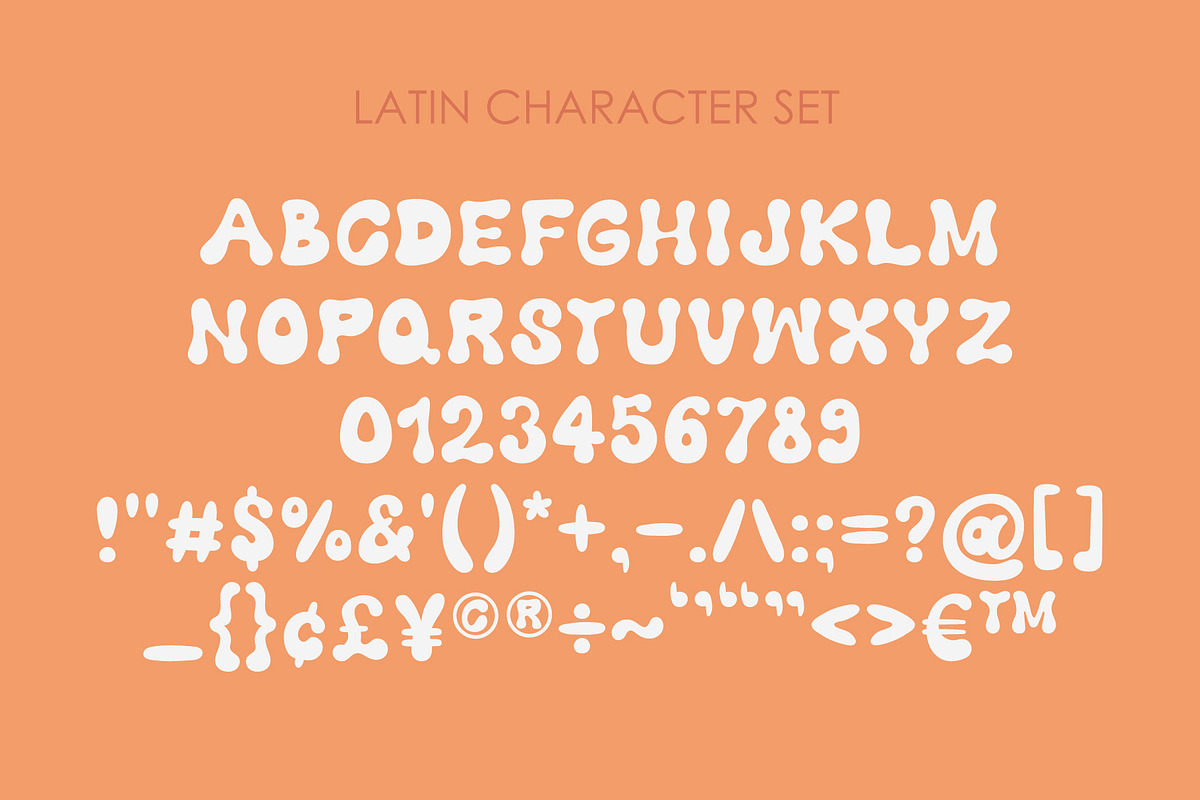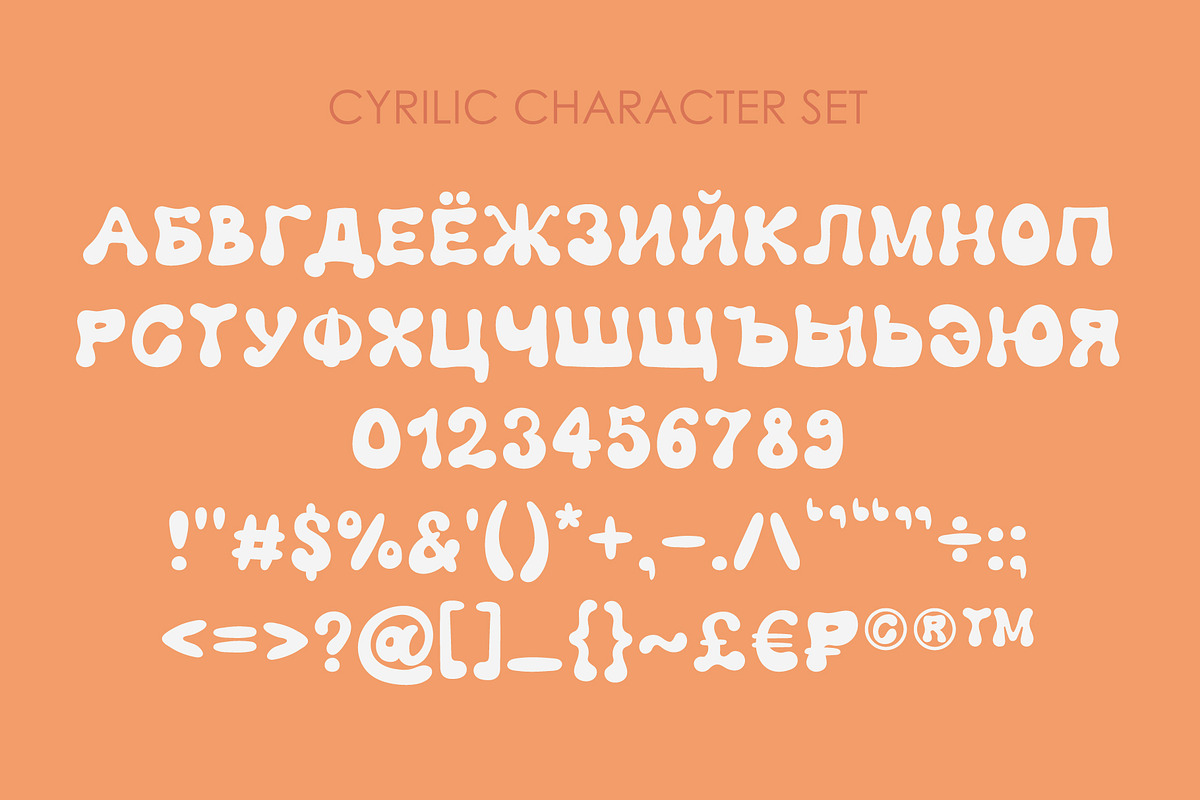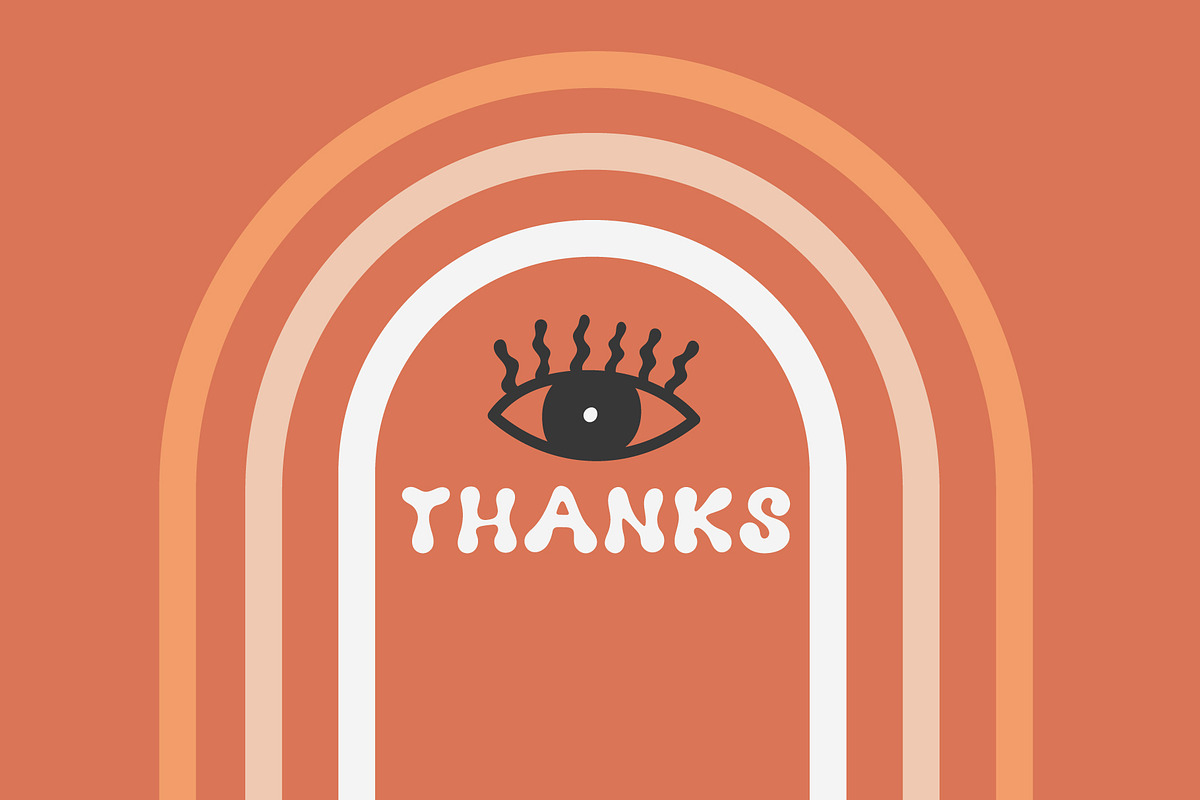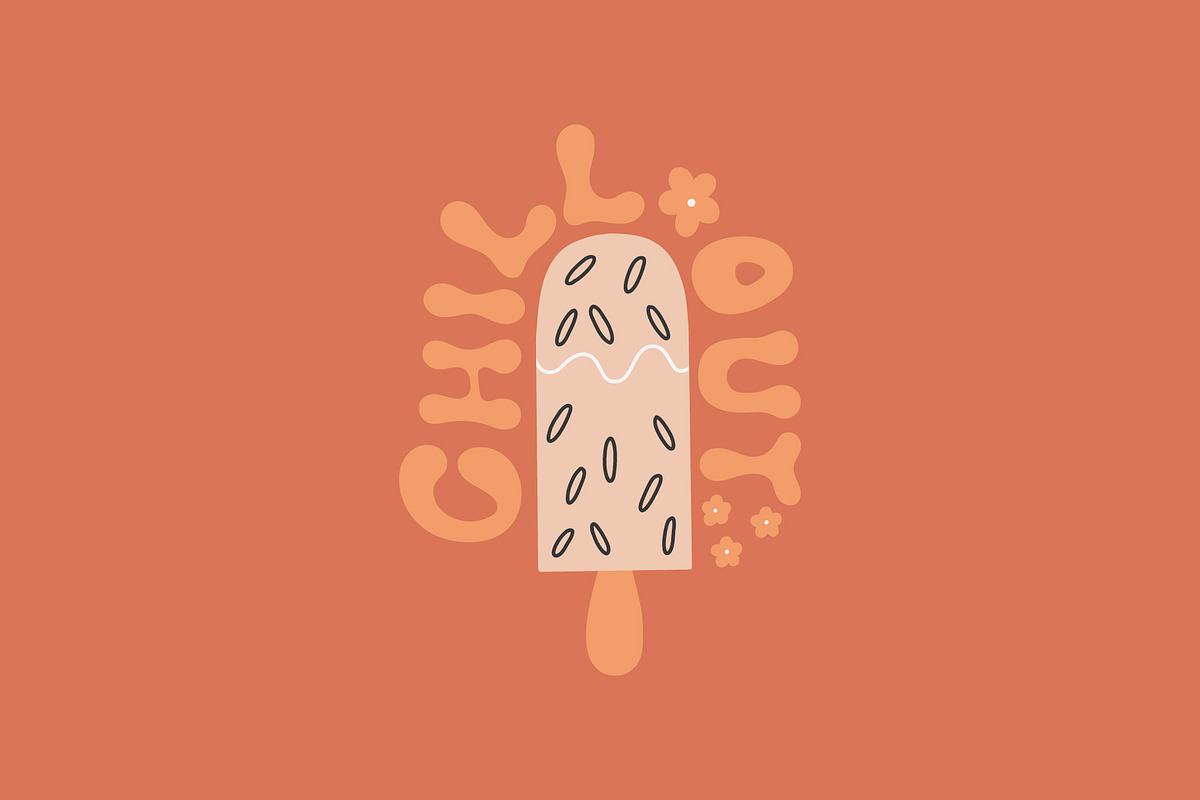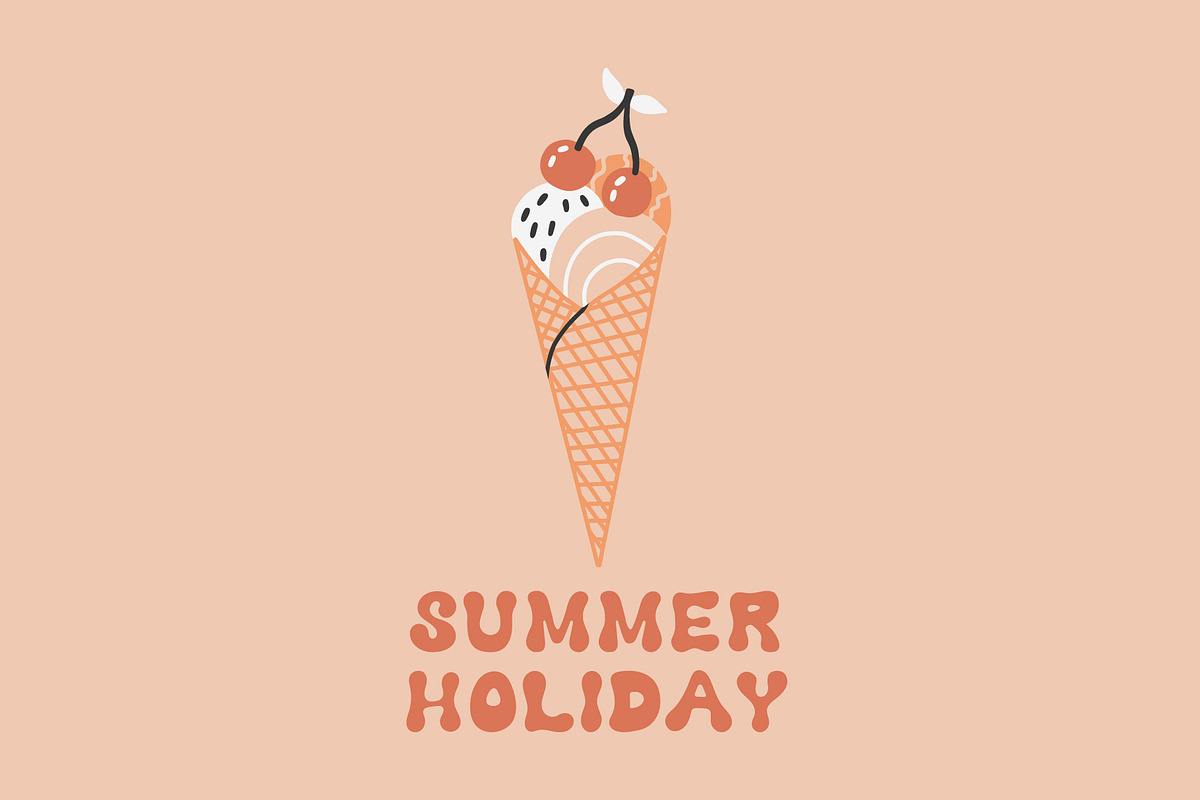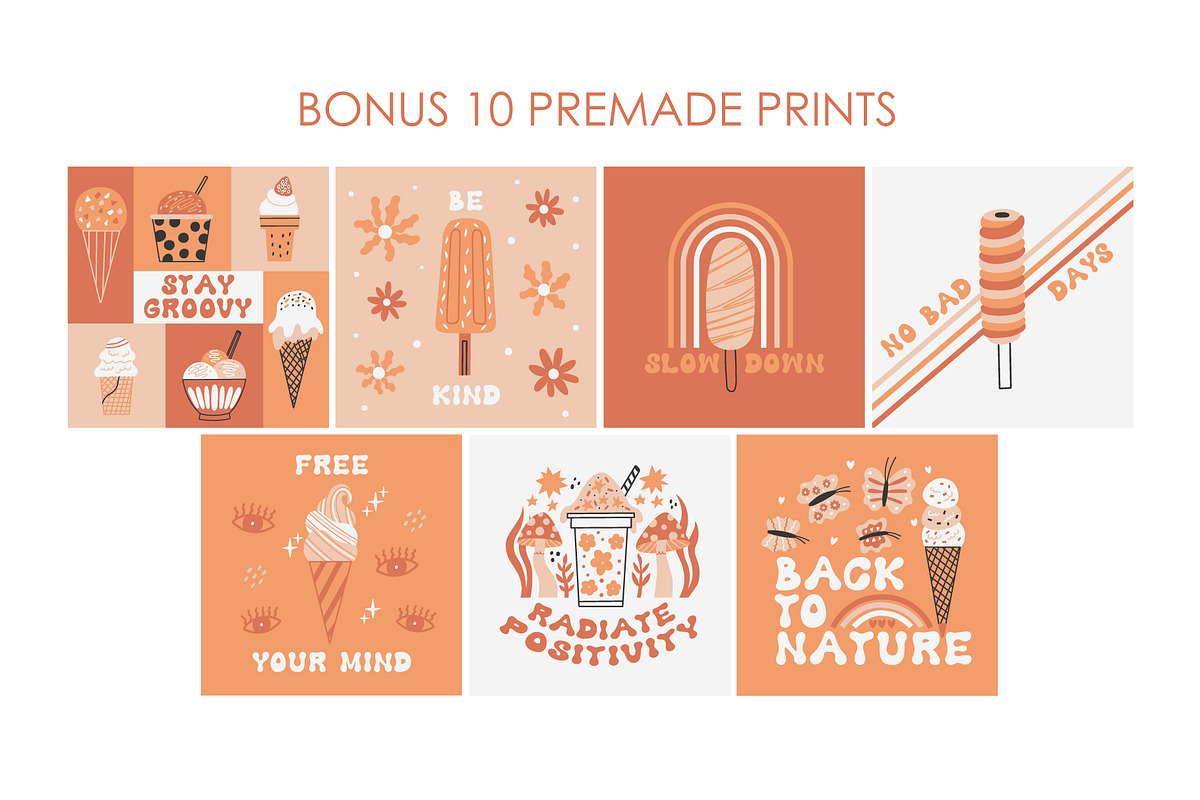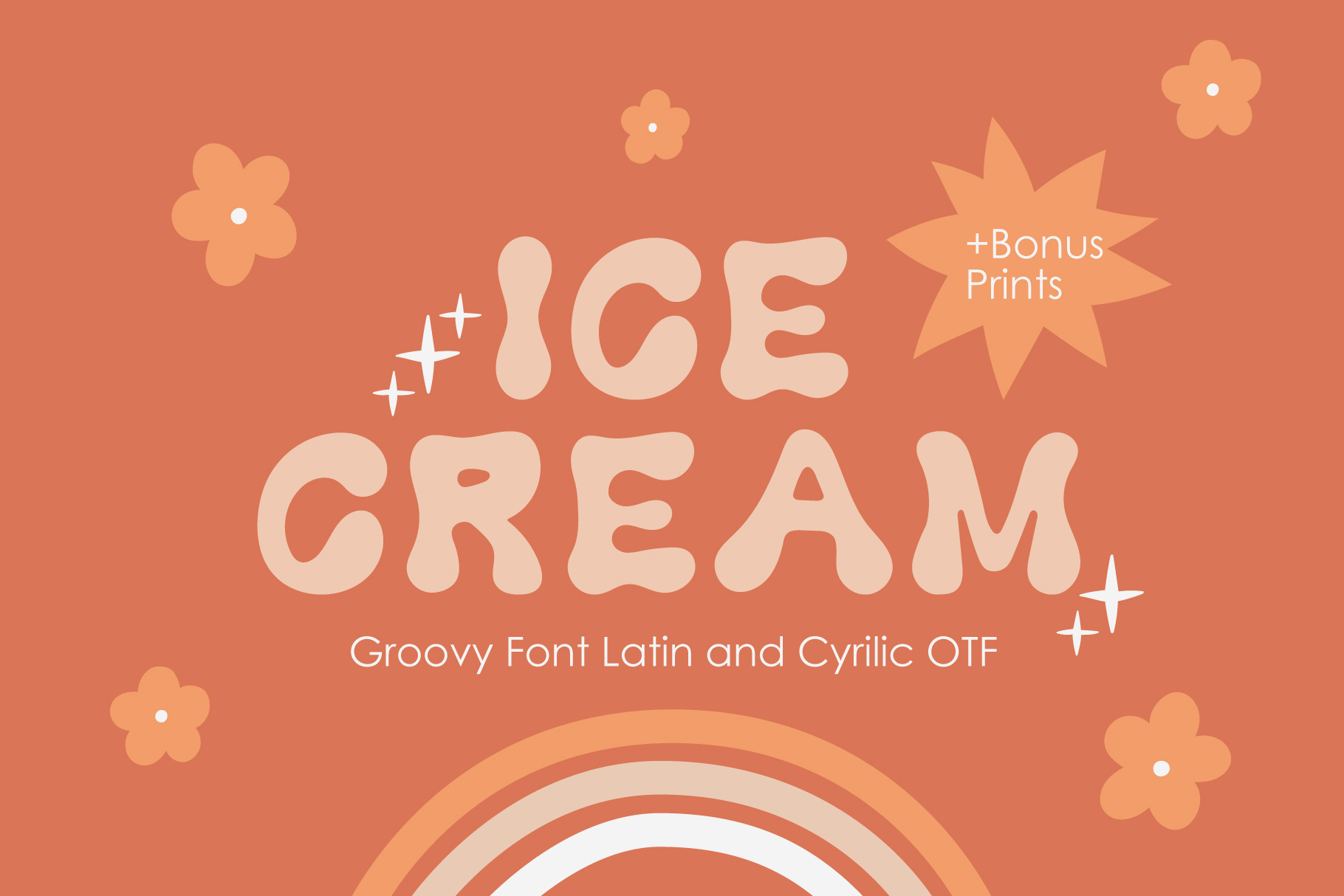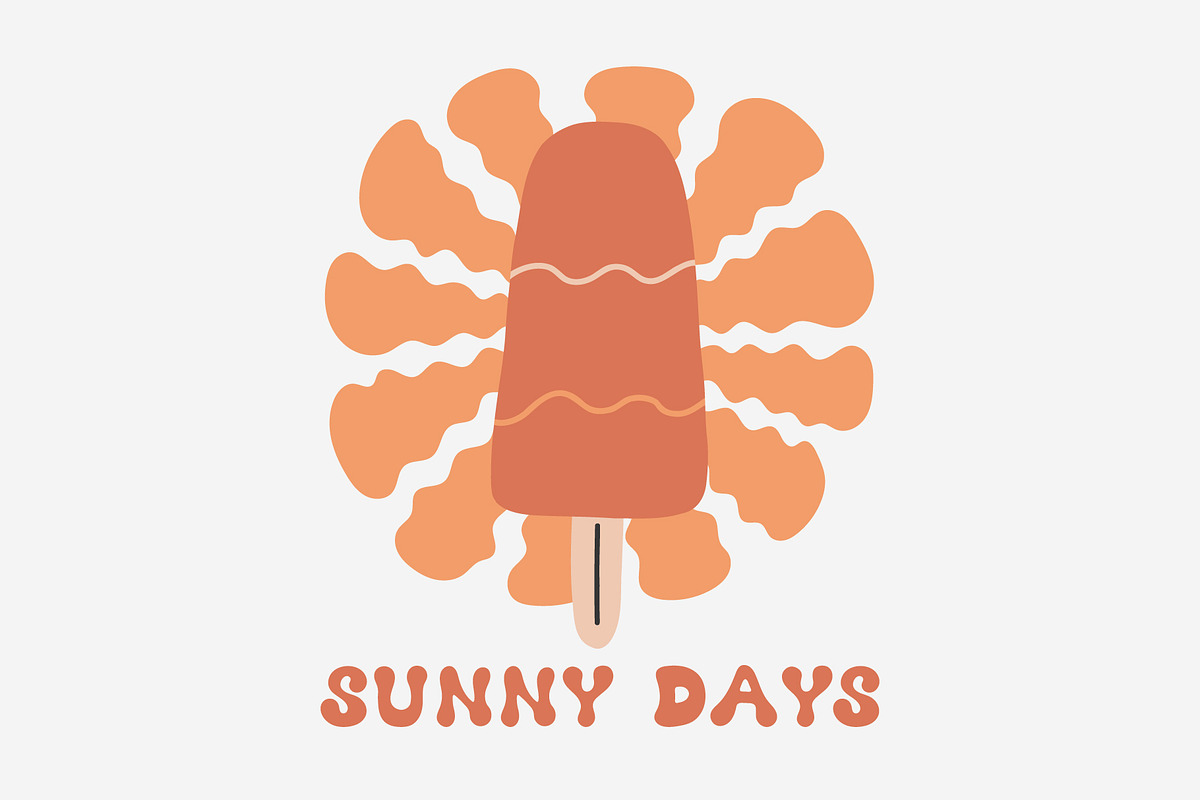
Ice Cream Groovy Font
Modern font in groovy style for prints design. Retro font was created in two variations of Latin and Cyrillic. They have basic lowercase letters, numbers and punctuation. Ideal for posters, postcards, banners, social media. The possibilities are endless. Enjoy!
- Latin lowercase, numbers, punctuations.
- Cyrillic lowercase, numbers, punctuations.